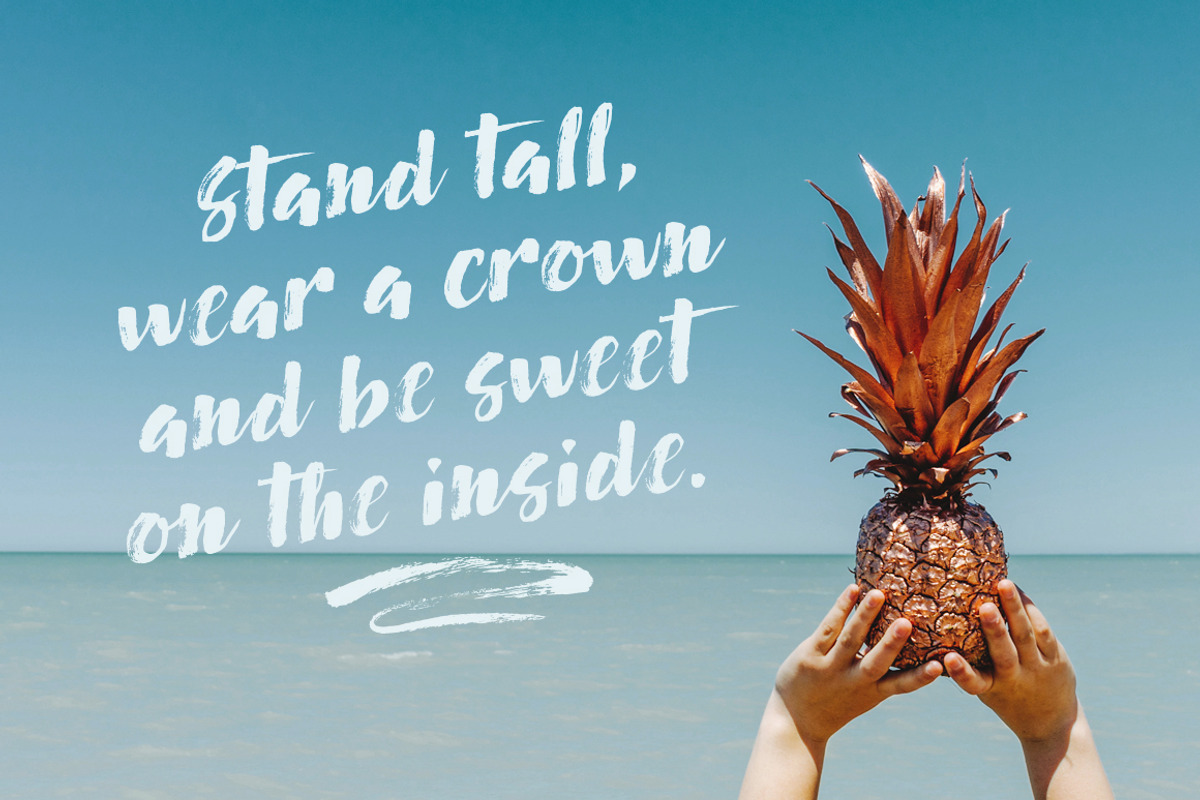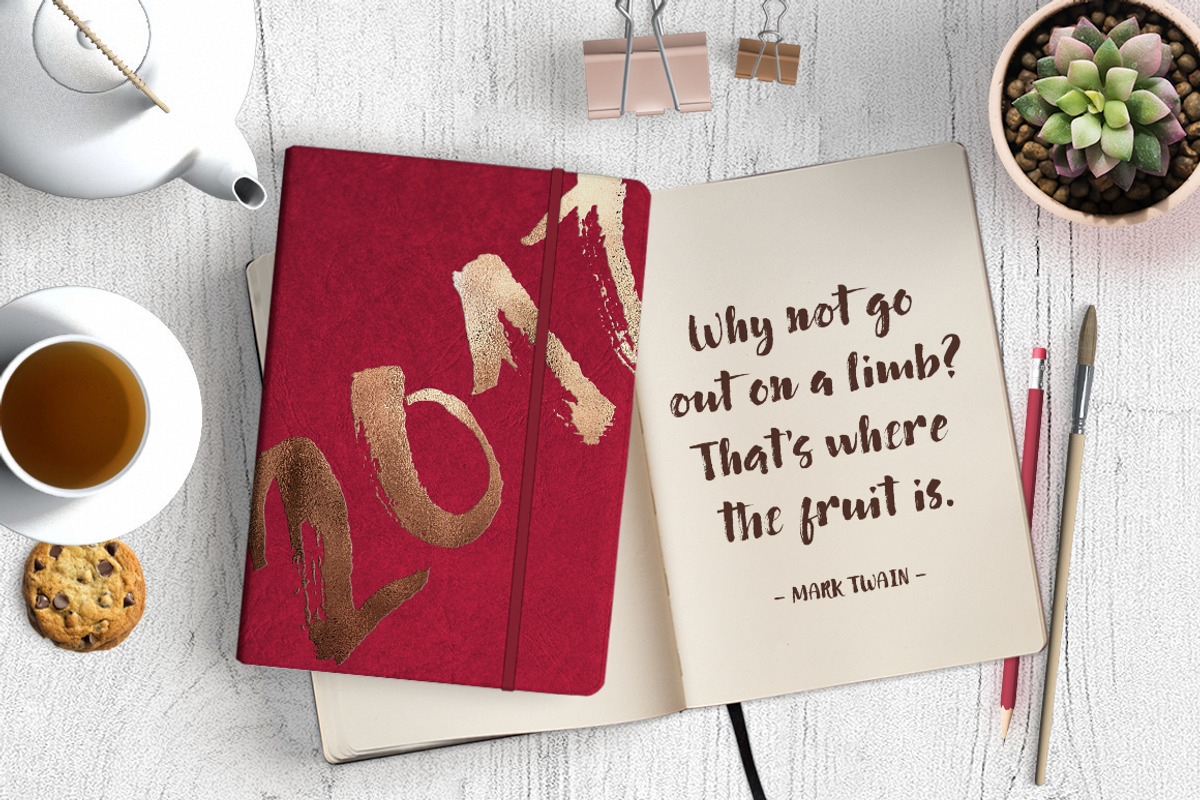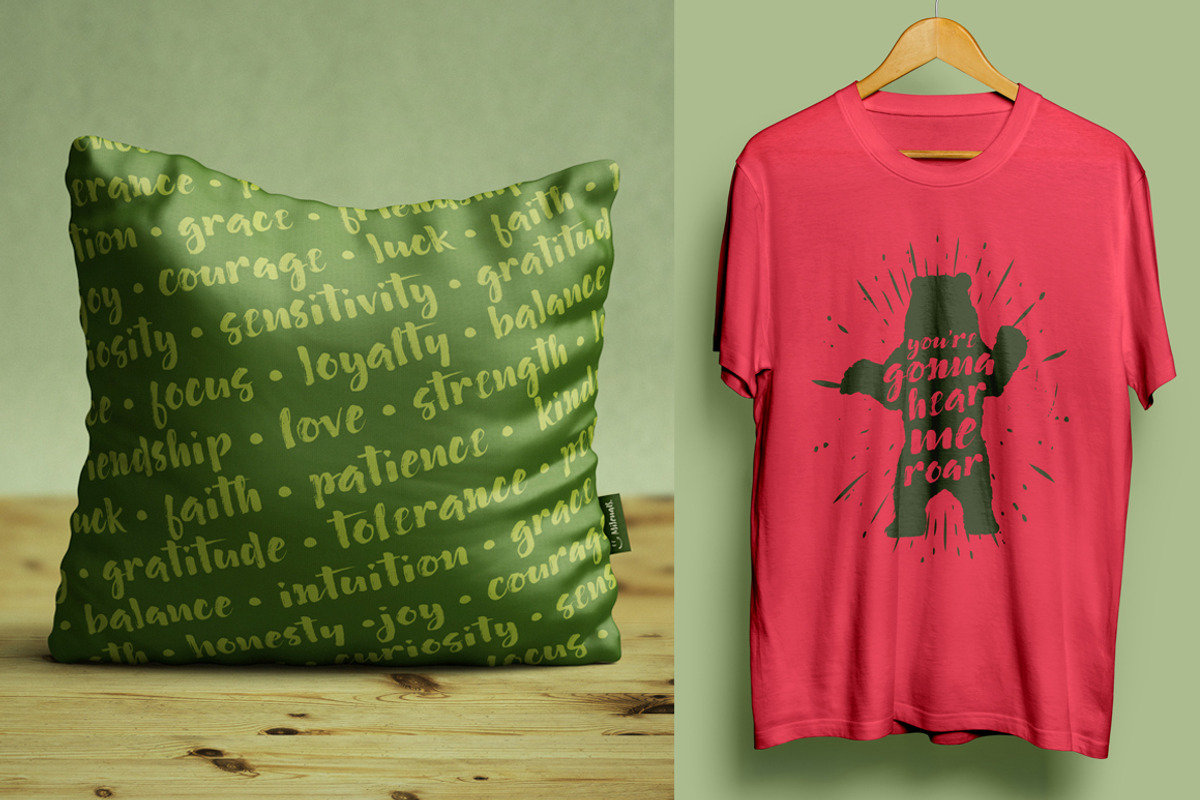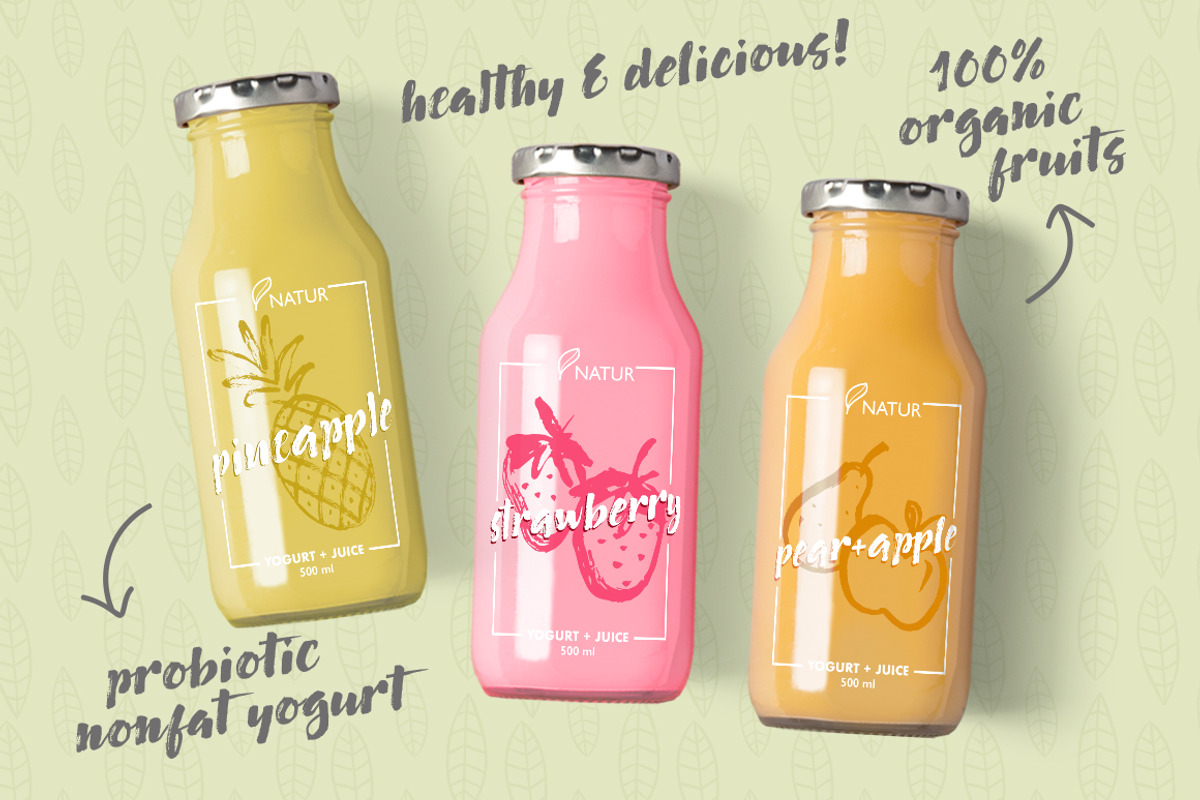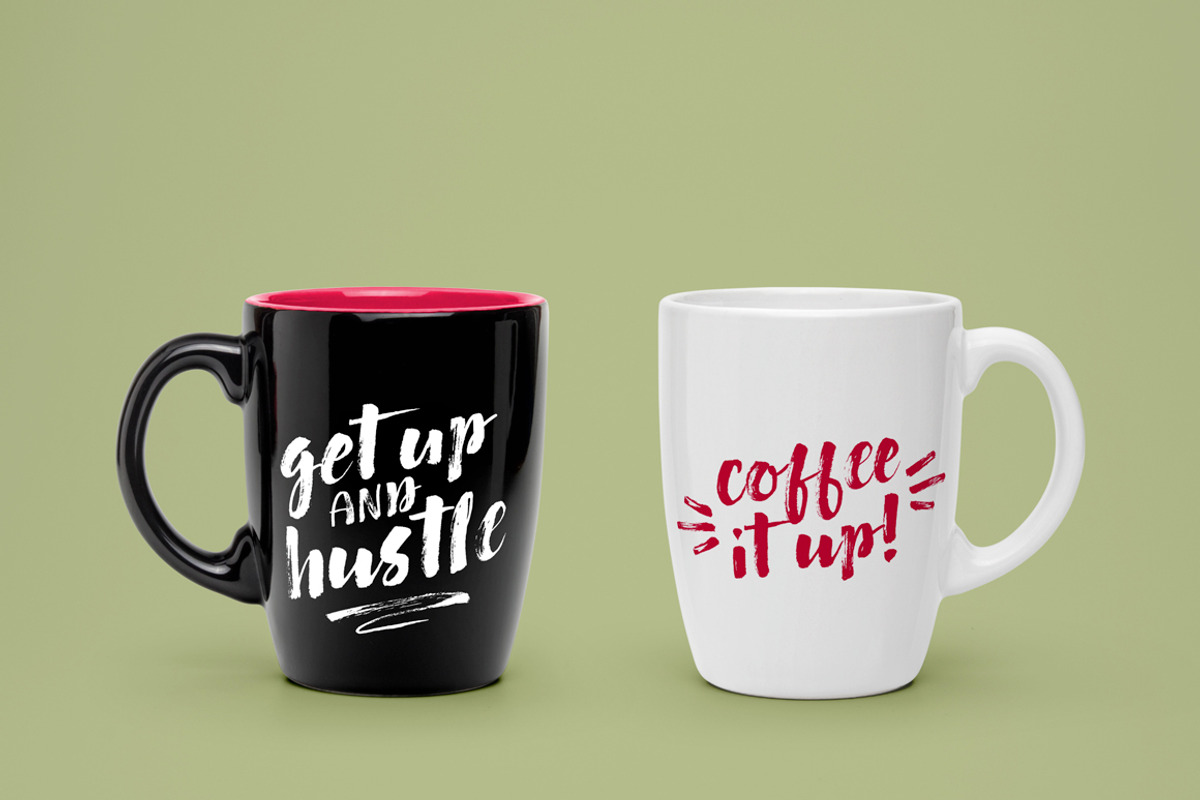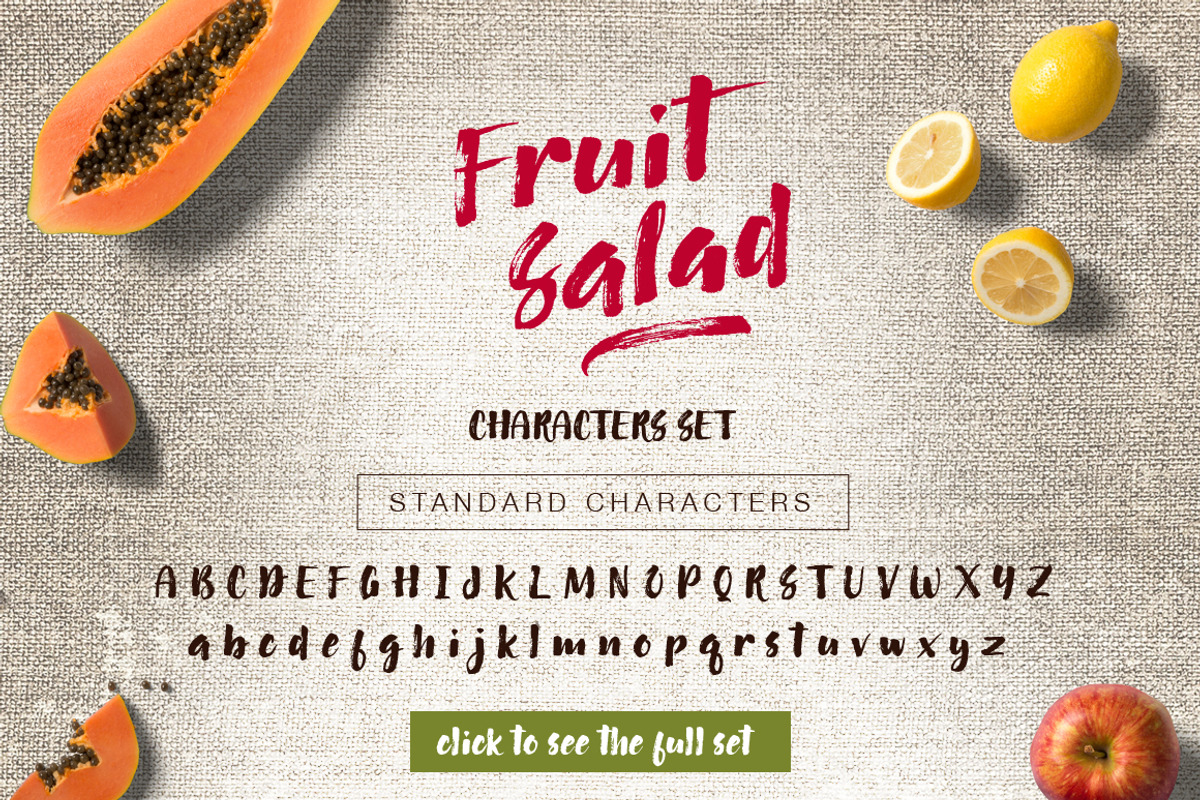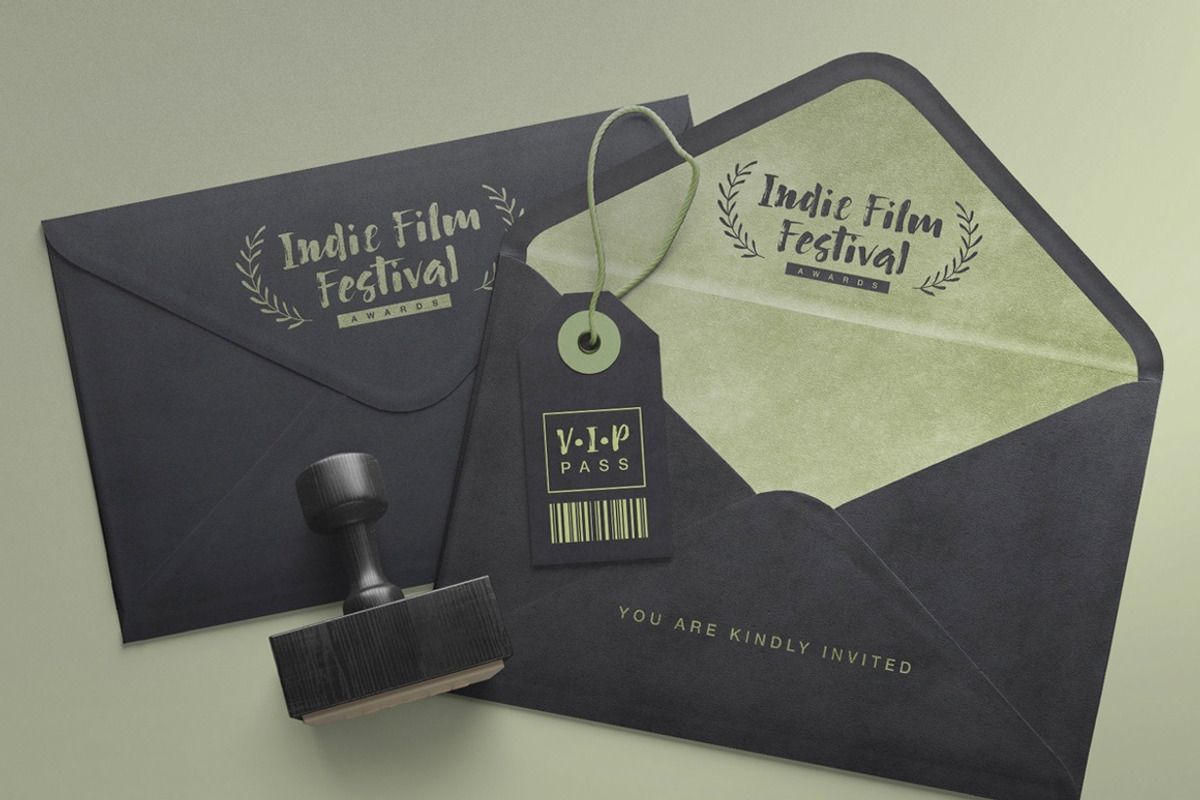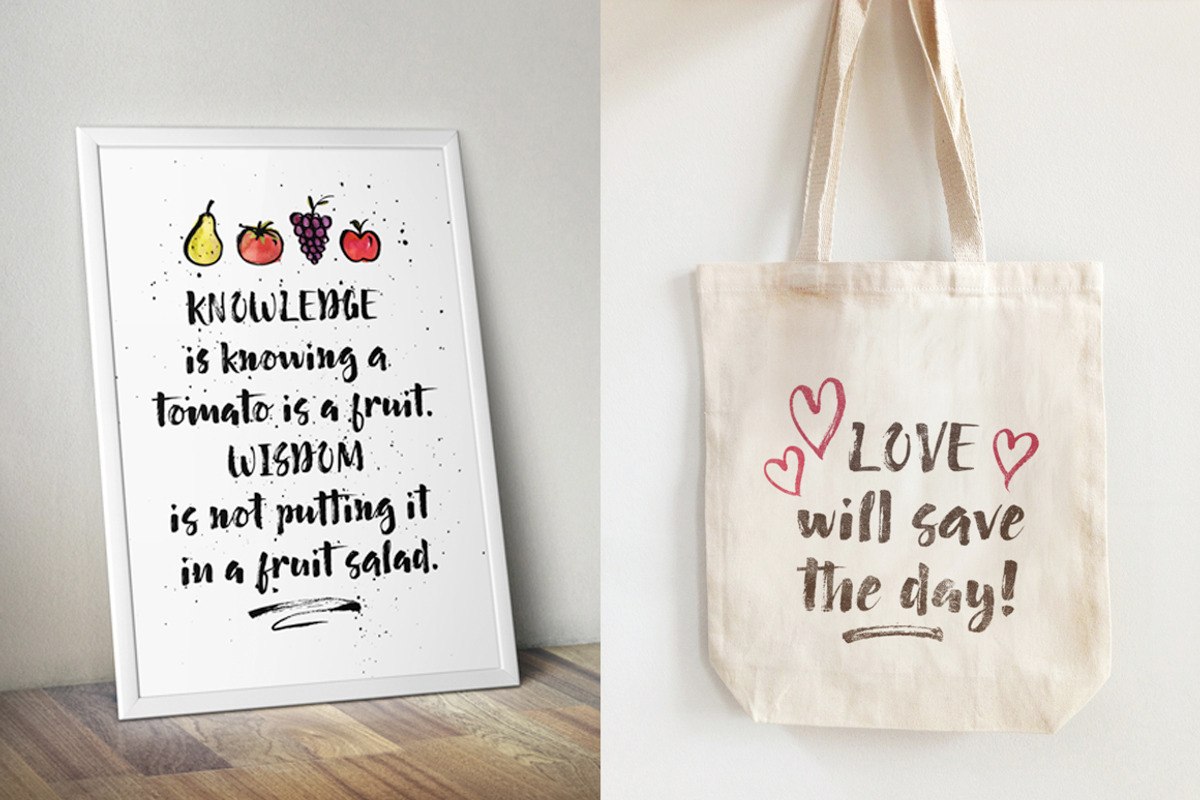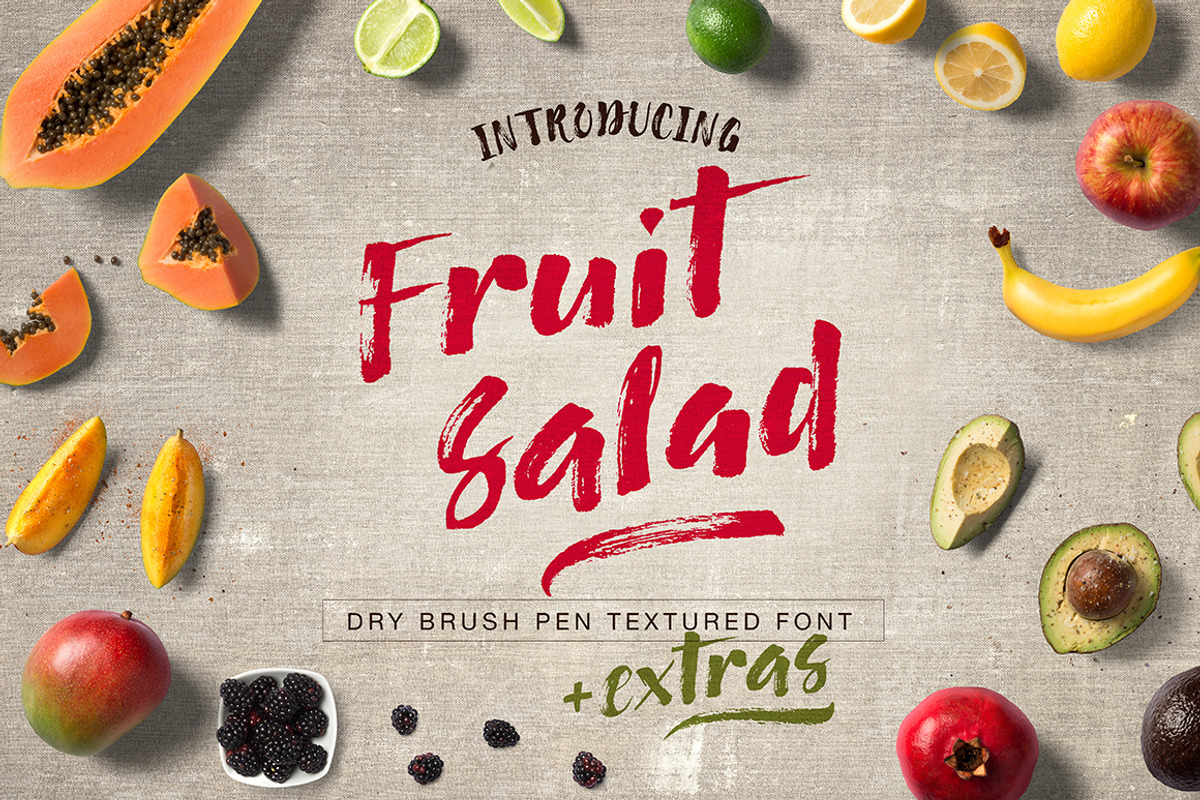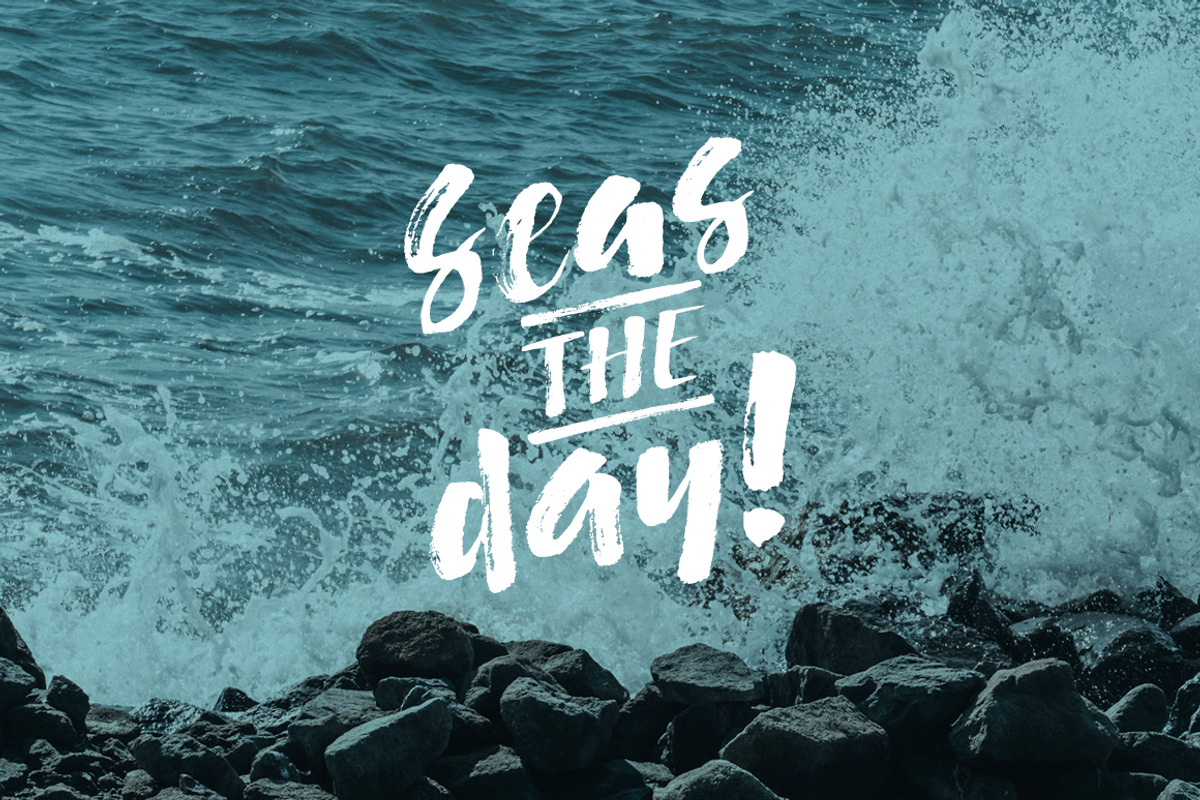
Fruit Salad Brush Font + Extras
Fruit Salad was entirely handwritten with a semi-dried brush pen, which gives it a deliciously textured look.
Use Fruit Salad to add a casual, cool, fresh and trendy feel to your designs.
Perfect for social media, merchandise promotion, stationery, branding, packaging, and much more!
Fruit Salad - Brush: comes with an alternate lowercase set and a bunch of open type features.
Fruit Salad - Extras: a handy swashes, doodles and catchwords complimentary font (a to z and A to Z). The download includes a Characters Map .pdf file for your convenience.